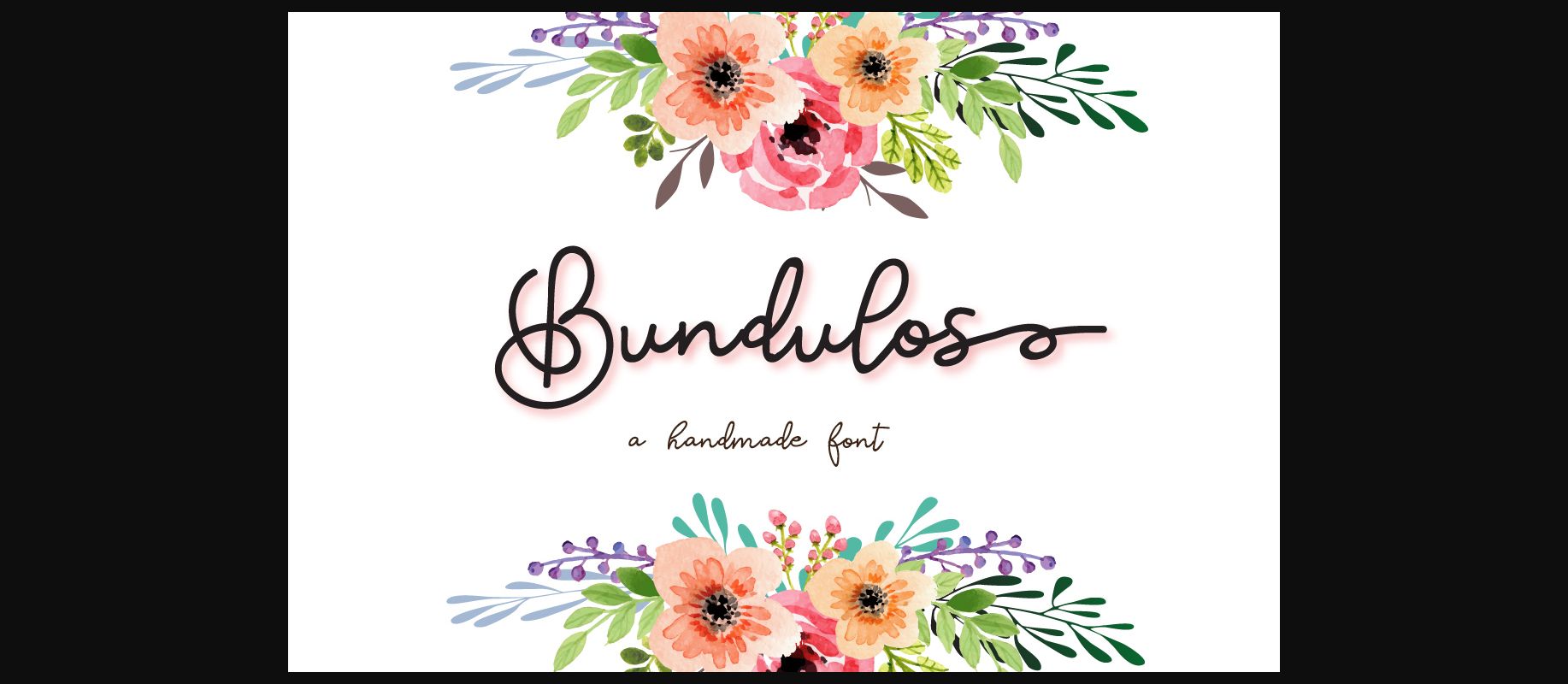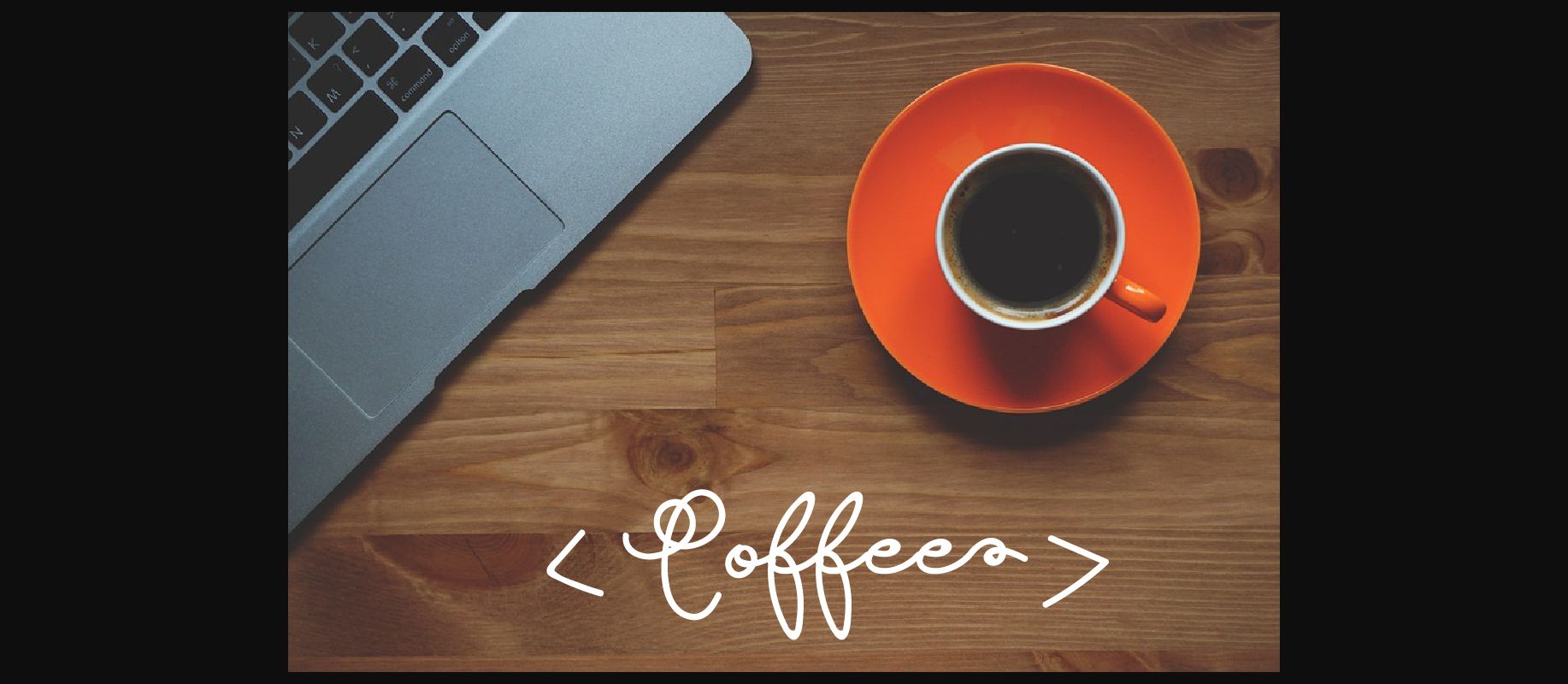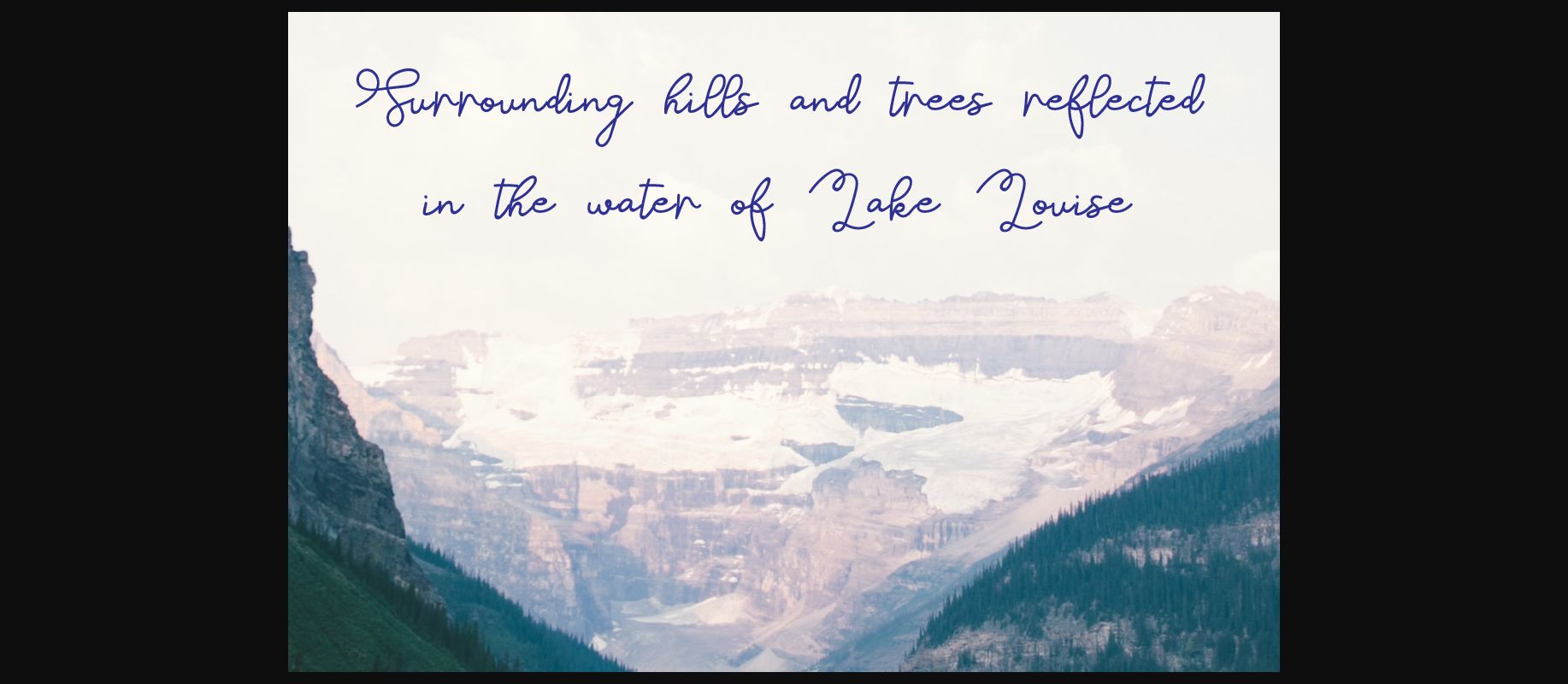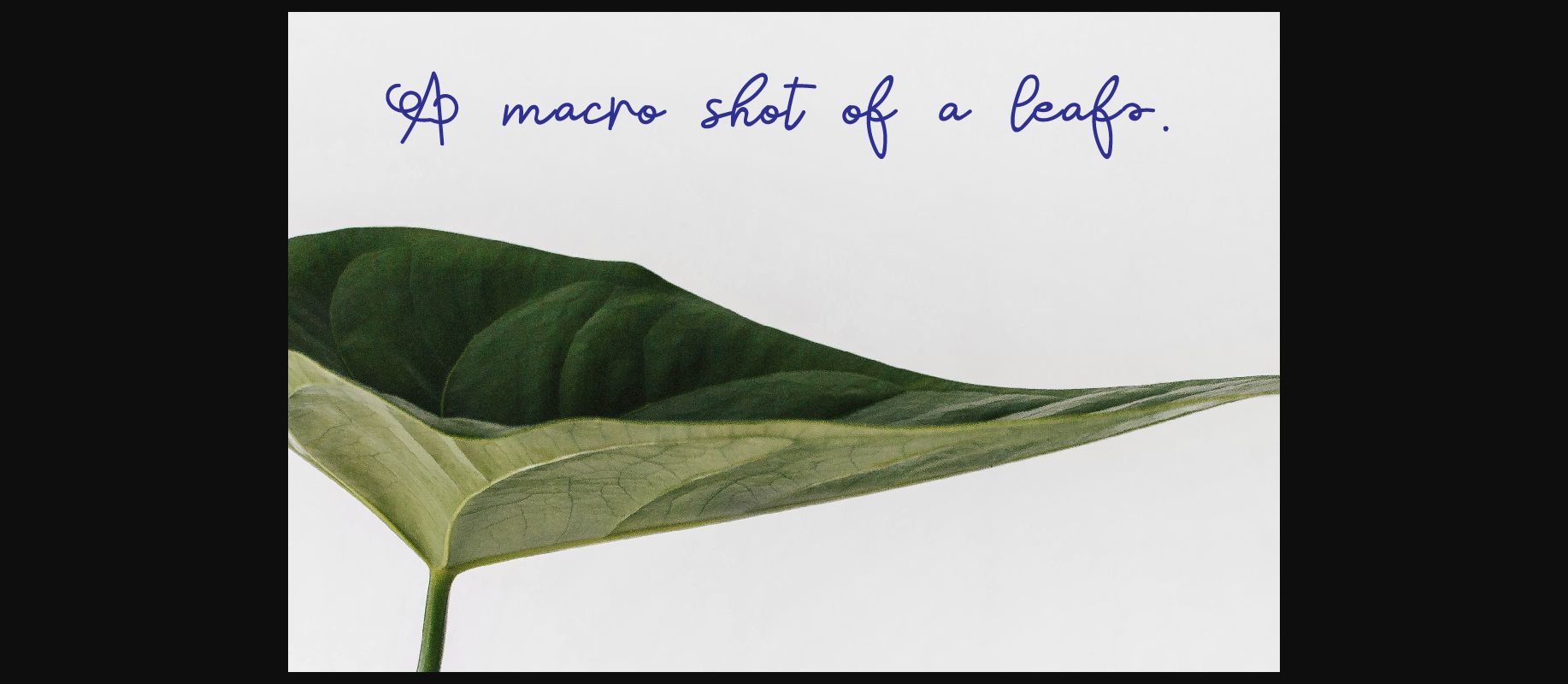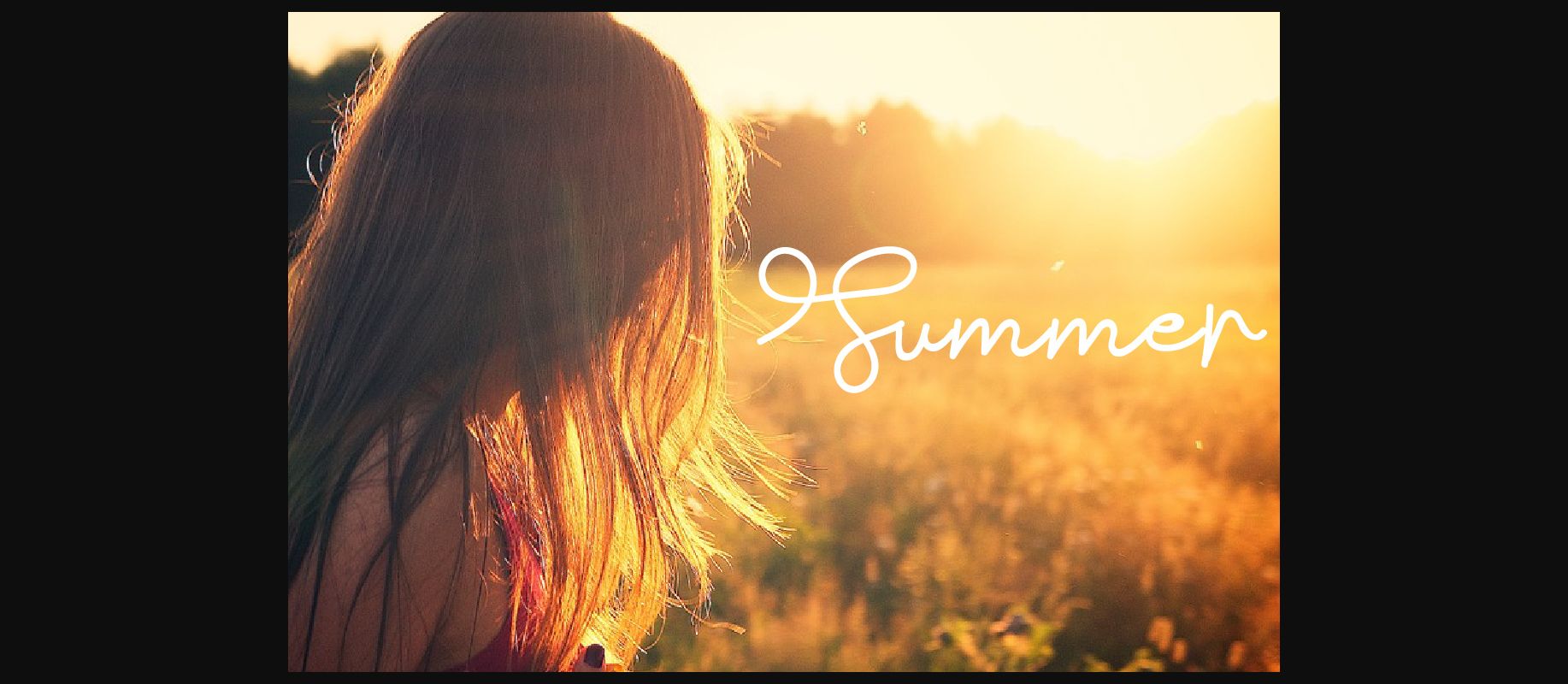
Bundulos Font
About Bundulos Font
Bundulos is a unique and bold decorative font with an authentic charm. It will turn any creative project into a stand out.